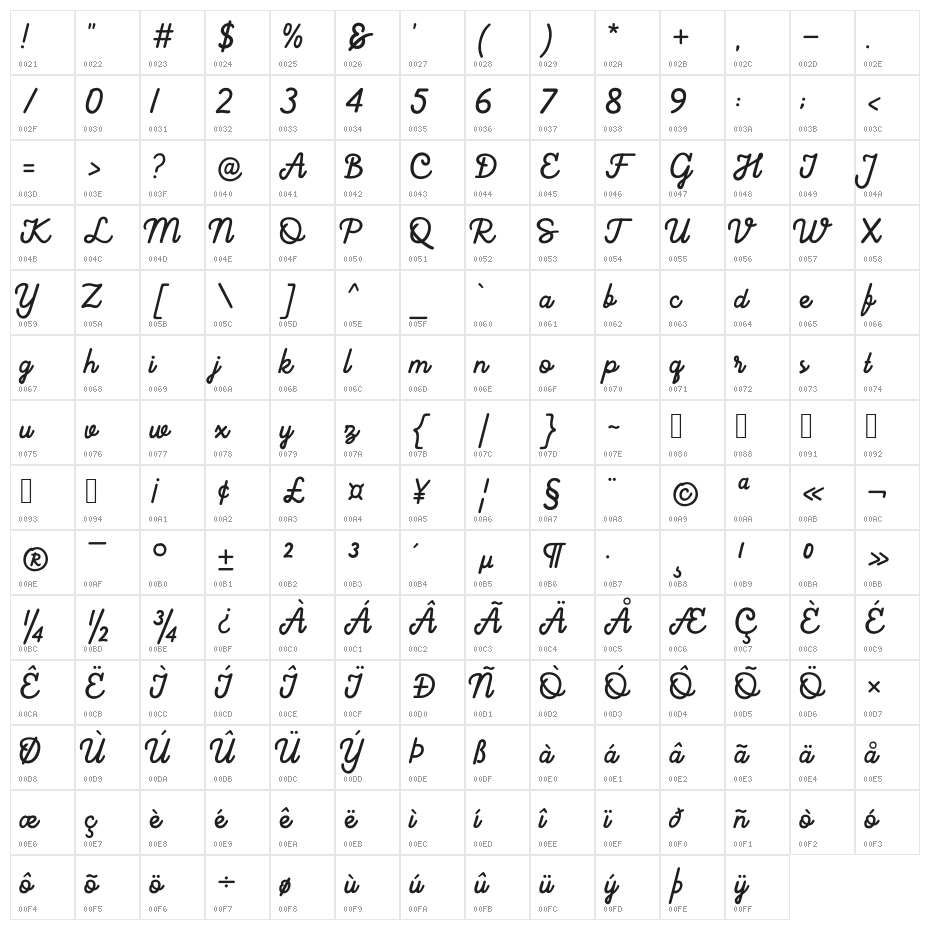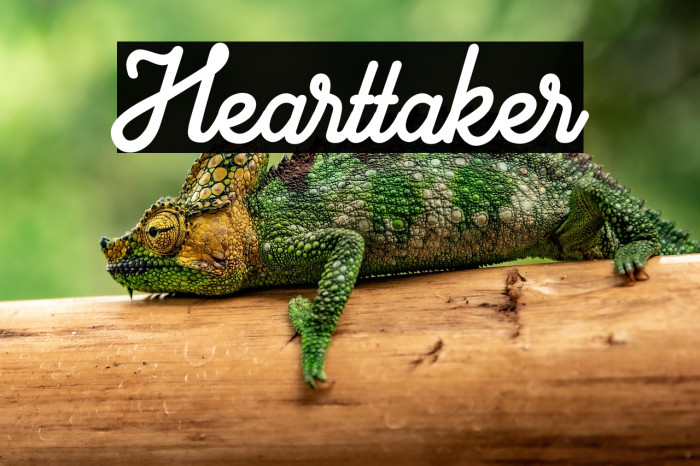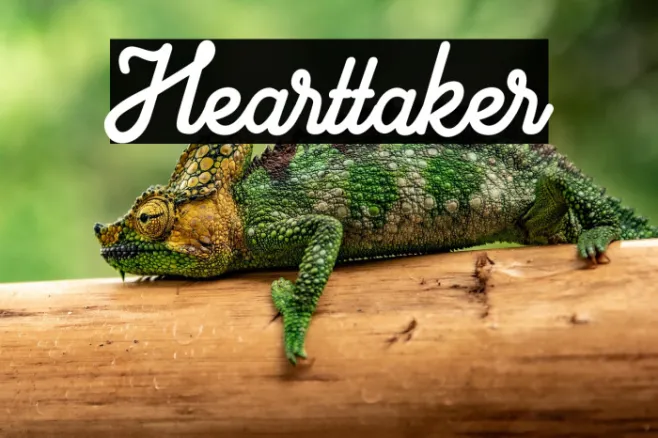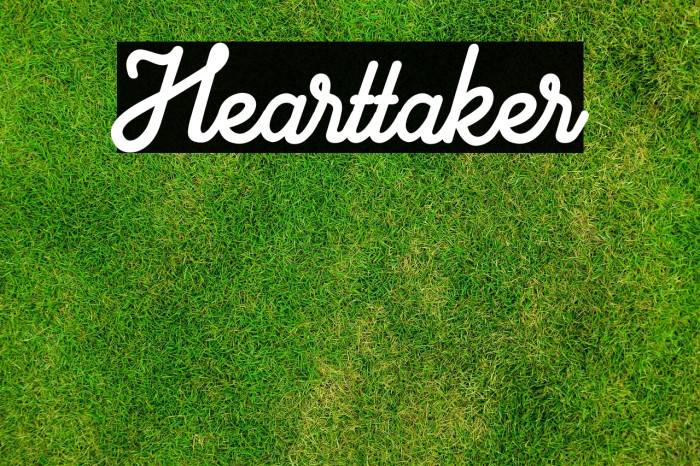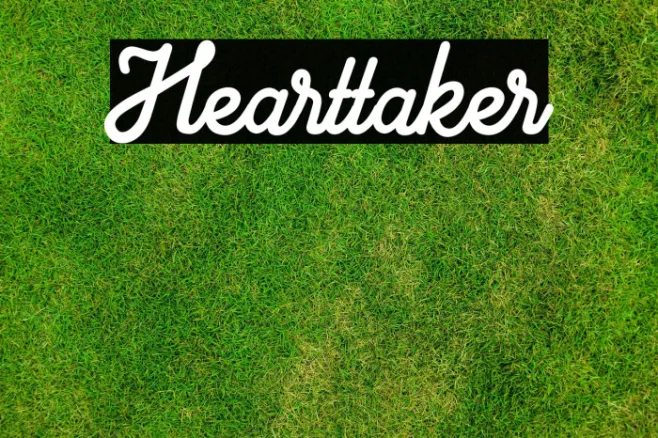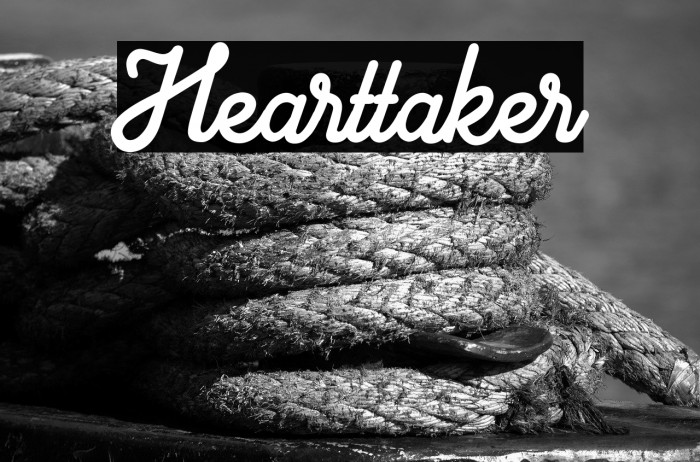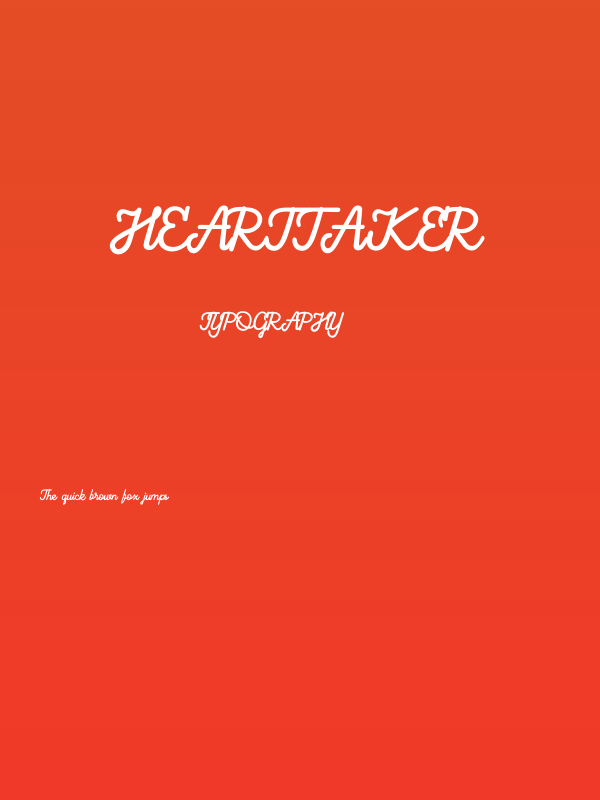
Hearttaker Font
Hearttaker Description
This font features a playful and flowing script style, characterized by its smooth, connected strokes and a lively, energetic appearance. The uppercase letters exhibit a sense of elegance with their sweeping curves, while the lowercase letters maintain a consistent rhythm and fluidity. The numerals are bold and clear, ensuring readability. Special characters are well-integrated, maintaining the overall aesthetic. This font's design is both expressive and versatile, making it suitable for a variety of creative applications.
Use CaseLogos, Invitations, Greeting cards
Proposed ProjectsIdeal for wedding invitations, greeting cards, branding projects, and playful logos.